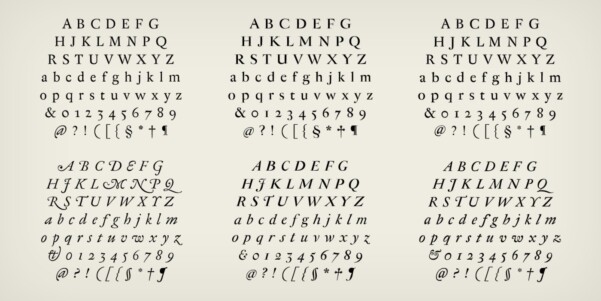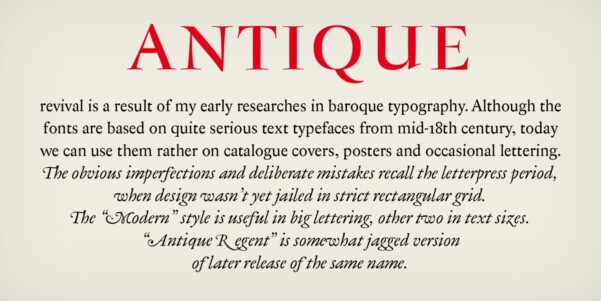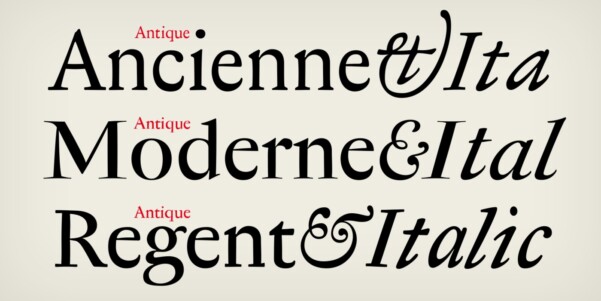
Antique Font Family
Antique Font Family,The concept of the Baroque Roman type face is something which is remote from us. Ungrateful theorists gave Baroque type faces the ill-sounding attribute “Transitional”, as if the Baroque Roman type face wilfully diverted from the tradition and at the same time did not manage to mature. This “transition” was originally meant as an intermediate stage between the Aldine/Garamond Roman face of the Renaissance, and its modern counterpart, as represented by Bodoni or Didot. Otherwise there was also a “transition” from a slanted axis of the shadow to a perpendicular one. What a petty detail led to the pejorative designation of Baroque type faces! If a bookseller were to tell his customers that they are about to choose a book which is set in some sort of transitional type face, he would probably go bust. After all, a reader, for his money, would not put up with some typographical experimentation. He wants to read a book without losing his eyesight while doing so. Nevertheless, it was Baroque typography which gave the world the most legible type faces. In those days the craft of punch-cutting was gradually separating itself from that of book-printing, but also from publishing and bookselling. Previously all these activities could be performed by a single person. The punch-cutter, who at that time was already fully occupied with the production of letters, achieved better results than he would have achieved if his creative talents were to be diffused in a printing office or a bookseller’s shop. Thus it was possible that for example the printer John Baskerville did not cut a single letter in his entire lifetime, for he used the services of the accomplished punch-cutter John Handy. It became the custom that one type founder supplied type to multiple printing offices, so that the same type faces appeared in various parts of the world. The type face was losing its national character. In the Renaissance period it is still quite easy to distinguish for example a French Roman type face from a Venetian one; in the Baroque period this could be achieved only with great difficulties. Imagination and variety of shapes, which so far have been reserved only to the fine arts, now come into play. Thanks to technological progress, book printers are now able to reproduce hairstrokes and imitate calligraphic type faces. Scripts and elaborate ornaments are no longer the privilege of copper-engravers. Also the appearance of the basic, body design is slowly undergoing a change. The Renaissance canonical stiffness is now replaced with colour and contrast. The page of the book is suddenly darker, its lay-out more varied and its lines more compact. For Baroque type designers made a simple, yet ingenious discovery – they enlarged the x-height and reduced the ascenders to the cap-height. The type face thus became seemingly larger, and hence more legible, but at the same time more economical in composition; the type area was increasing to the detriment of the margins. Paper was expensive, and the aim of all the publishers was, therefore, to sell as many ideas in as small a book block as possible. A narrowed, bold majuscule, designed for use on the title page, appeared for the first time in the Late Baroque period. Also the title page was laid out with the highest possible economy. It comprised as a rule the brief contents of the book and the address of the bookseller, i.e. roughly that which is now placed on the flaps and in the imprint lines. Bold upper-case letters in the first line dramatically give way to the more subtle italics, the third line is highlighted with vermilion; a few words set in lower-case letters are scattered in-between, and then vermilion appears again. Somewhere in the middle there is an ornament, a monogram or an engraving as a kind of climax of the drama, while at the foot of the title-page all this din is quietened by a line with the name of the printer and the year expressed in Roman numerals, set in 8-point body size. Every Baroque title-page could well pass muster as a striking poster. The pride of every book printer was the publication of a type specimen book – a typographical manual. Among these manuals the one published by Fournier stands out – also as regards the selection of the texts for the specimen type matter. It reveals the scope of knowledge and education of the master typographers of that period. The same Fournier established a system of typographical measurement which, revised by Didot, is still used today. Baskerville introduced the smoothing of paper by a hot steel roller, in order that he could print astonishingly sharp letters, etc. … In other words – Baroque typography deserves anything else but the attribute “transitional”. In the first half of the 18th century, besides persons whose names are prominent and well-known up to the present, as was Caslon, there were many type founders who did not manage to publish their manuals or forgot to become famous in some other way. They often imitated the type faces of their more experienced contemporaries, but many of them arrived at a quite strange, even weird originality, which ran completely outside the mainstream of typographical art. The prints from which we have drawn inspiration for these six digital designs come from Paris, Vienna and Prague, from the period around 1750. The transcription of letters in their intact form is our firm principle. Does it mean, therefore, that the task of the digital restorer is to copy meticulously the outline of the letter with all inadequacies of the particular imprint? No. The type face should not to evoke the rustic atmosphere of letterpress after printing, but to analyze the appearance of the punches before they are imprinted. It is also necessary to take account of the size of the type face and to avoid excessive enlargement or reduction. Let us keep in mind that every size requires its own design. The longer we work on the computer where a change in size is child’s play, the more we are convinced that the appearance of a letter is tied to its proportions, and therefore, to a fixed size. We are also aware of the fact that the computer is a straightjacket of the type face and that the dictate of mathematical vectors effectively kills any hint of naturalness. That is why we strive to preserve in these six alphabets the numerous anomalies to which later no type designer ever returned due to their obvious eccentricity. Please accept this PostScript study as an attempt (possibly futile, possibly inspirational) to brush up the warm magic of Baroque prints. Hopefully it will give pleasure in today’s modern type designer’s nihilism.